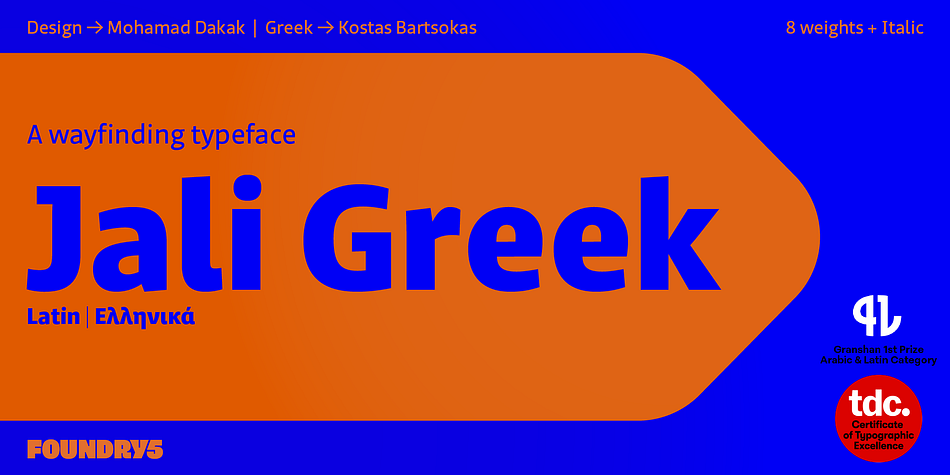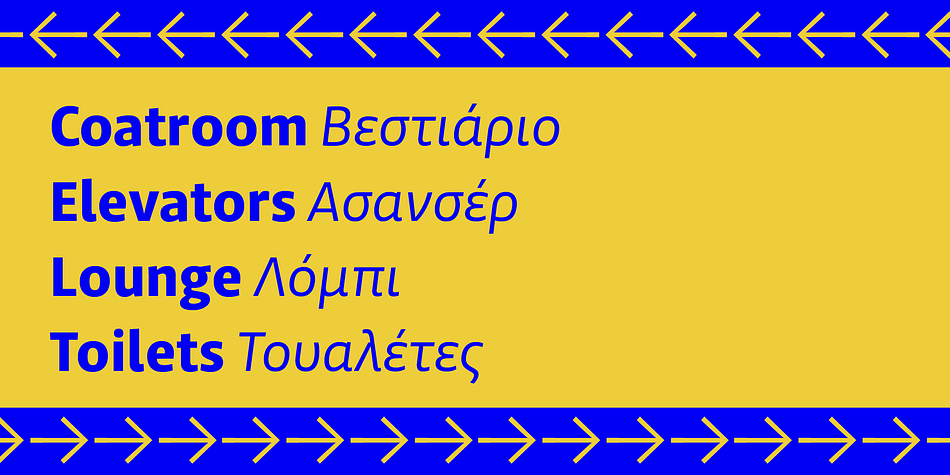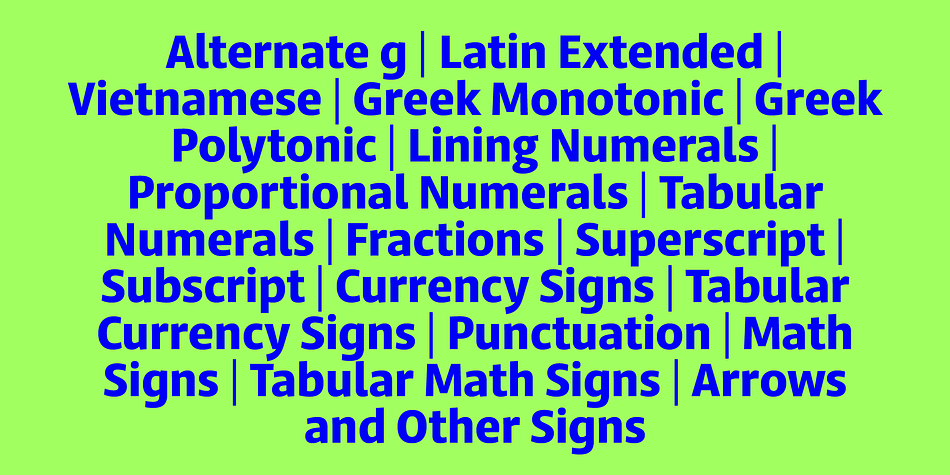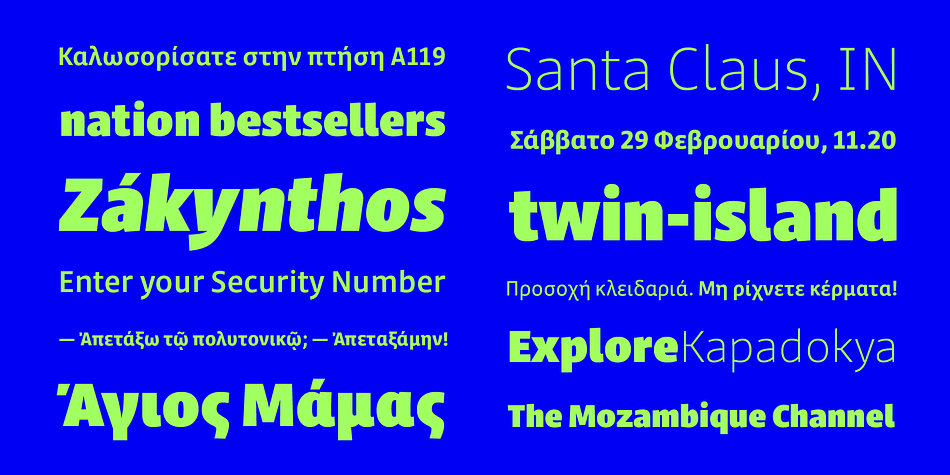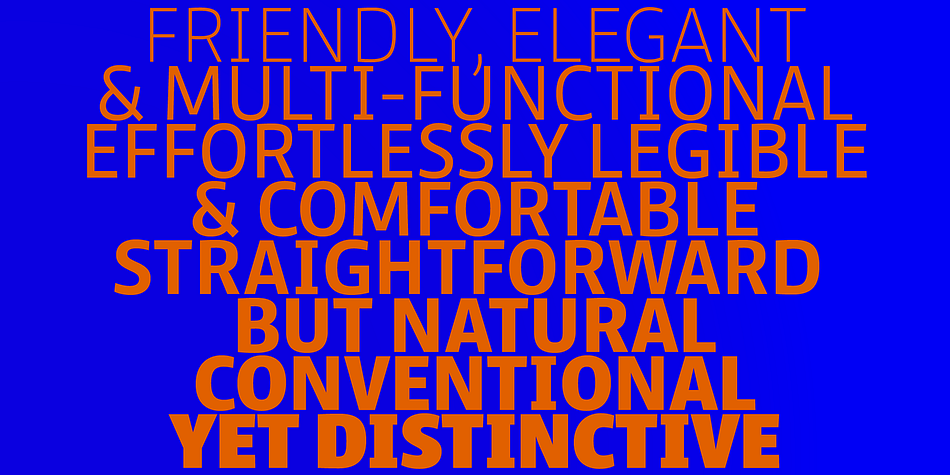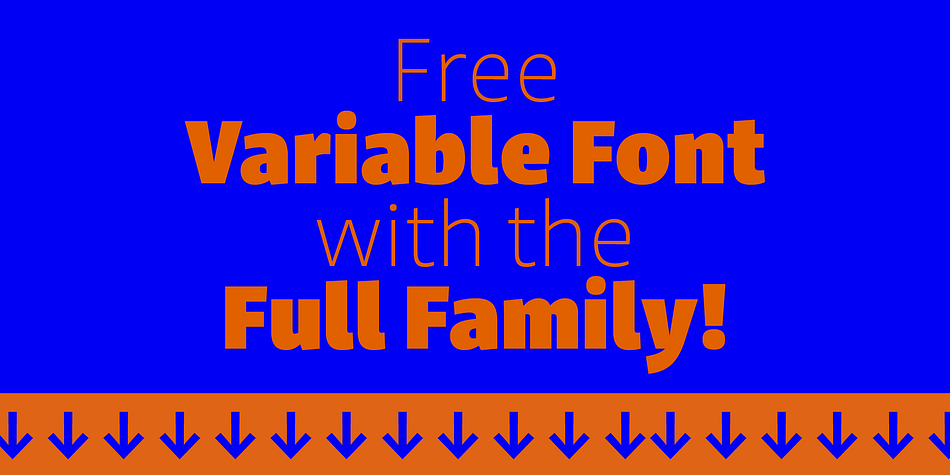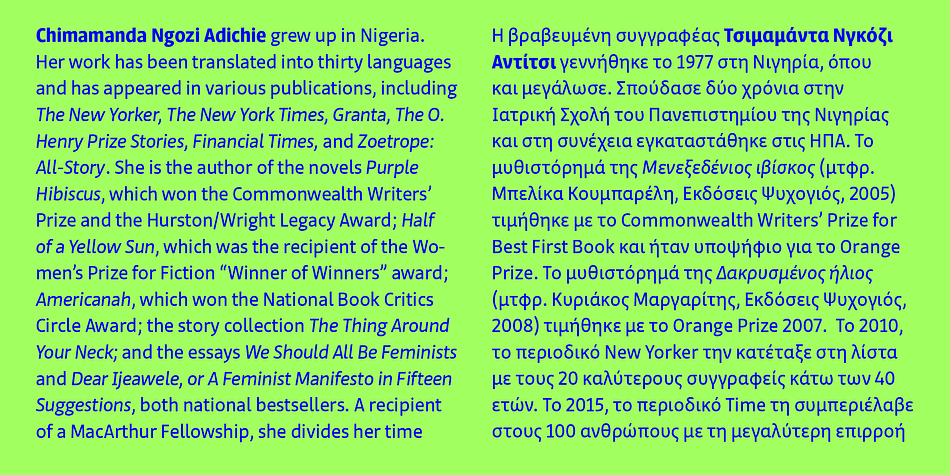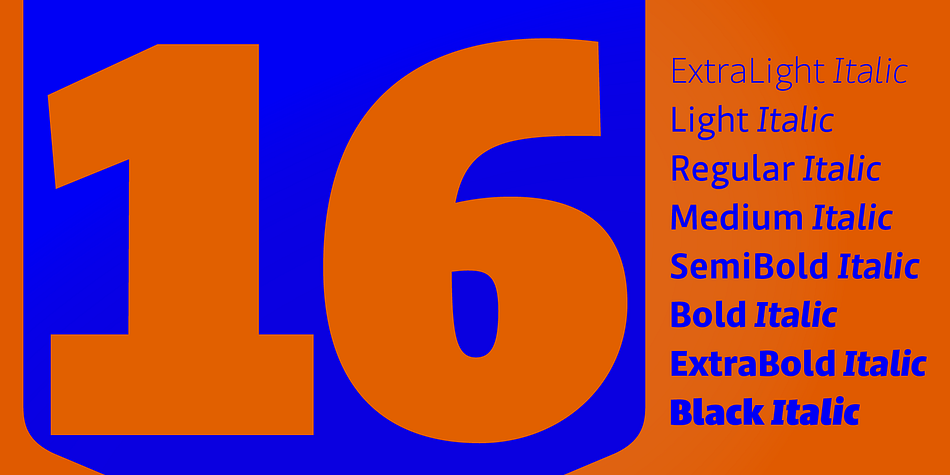
Designed by Mohamad Dakak and Kostas Bartsokas, Jali Greek is a sans serif font family. This typeface has eighteen styles and was published by Foundry5.
Jali is a humanist sans serif typeface particularly suited for wayfinding. Jali comes in versions that support Arabic, Greek, and Latin.
The name ‘Jali’ means clear in the Arabic language. The design of Jali reflects the ethos of its name. The combination of low-contrast strokes, ample counters, dots, and distinguishable marks make Jali a versatile typeface. With its humanistic voice and clear letterforms, Jali aims at offering a warm and efficient reading experience. Similar to other wayfinding type families, Jali is also well suited for demanding typographic environments.
Jali has received two renowned awards: TDC Certificate in Typographic Excellence and Granshan’s 1st Prize, Arabic & Latin Category in 2019.